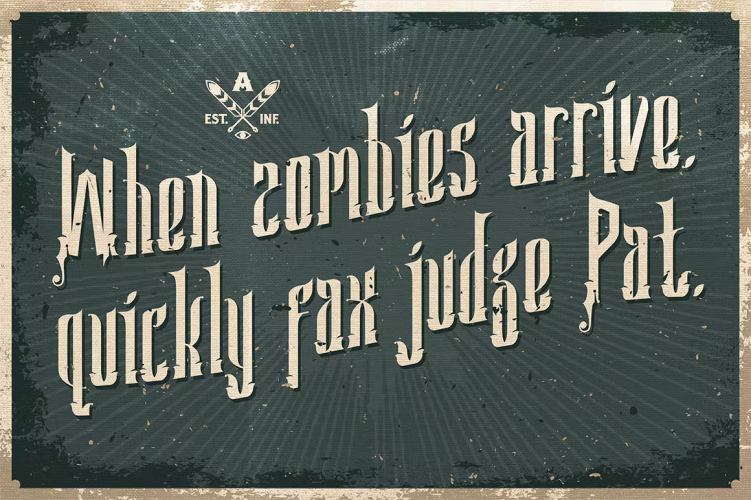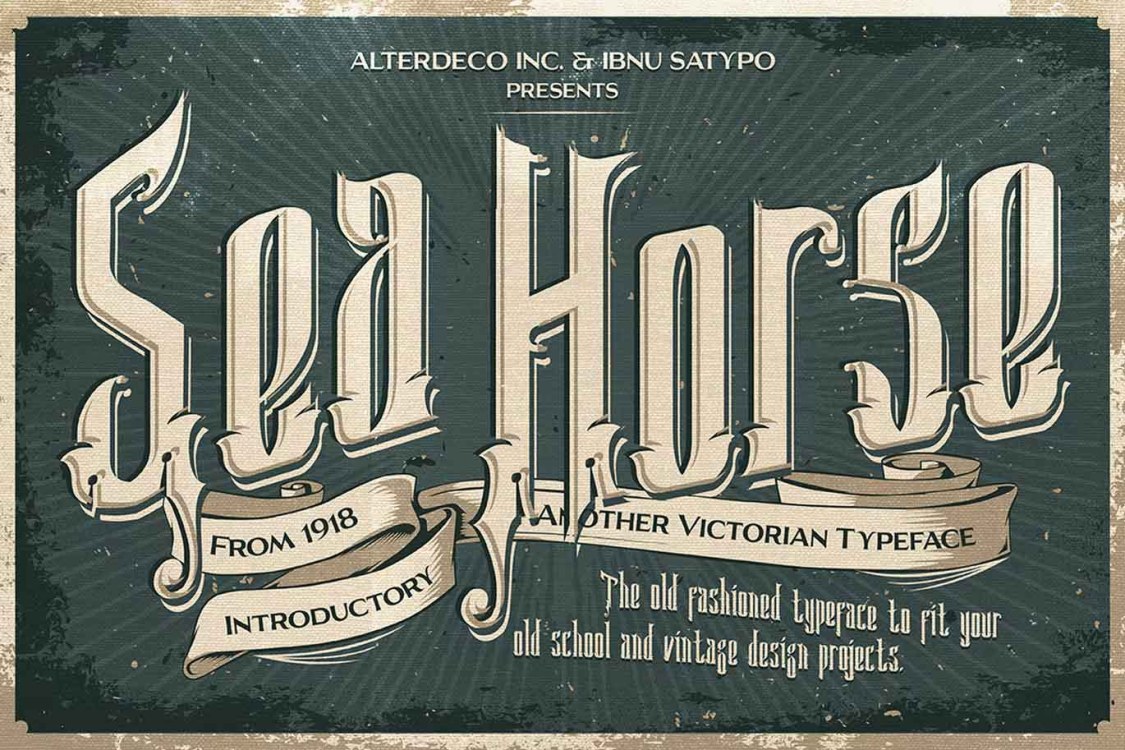
Sea Horse Typeface Font
introducing our new font called Sea Horse, it’s inspired by old victorian typography and sign painting. this font is perfect for your vintage greeting cards, logo, and other classical design projects.
Sea Horse Typeface Font is a Serif Fonts font that brings a professional and versatile look to your projects. introducing our new font called Sea Horse, it’s inspired by old victorian typography and sign painting.